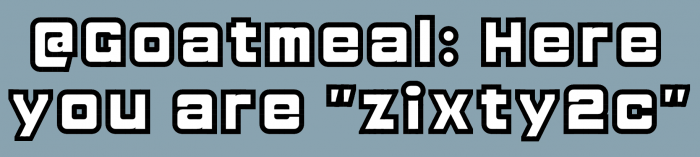
@Goatmeal: Dear friend, I did this crazy thing because you touched my curiosity and it was very quick to paste the cut glyphs. And what do you think about the results? However, I still preferring the first one.
@elmoyenique - Wonderful!  But you are correct; I like your first version better, too.  ;^)
Œ and œ still have the things gping through…
@BWM: Thanks to you too. Fixed Œ and œ.
@elmoyenique You forgot œ...
I mean "You forgot to remove the line on œ tho"
@Hensley Dodson: Thanks. Fixed.
Nice, this also works well with adjusted letterspacing so that the outlines overlap.
@four: Thanks, compa! I buy you the good idea!
@elmoyenique - Perhaps for clone "zixty2d", reduce the spacing of "zixty2b" like @four suggested for "zixty2c" (outlines overlap).  The contrast of the expected spacing (between glyphs) versus the unexpected spacing (within glyphs) would make for another interesting variation.  :^)
@Goatmeal: Thanks for the interesting suggestion. I've tried this with "2b", but then the erased vertical strokes make the font seems to me harder to read. There are always more alternatives to try, that's the fun. Never say never again. ?